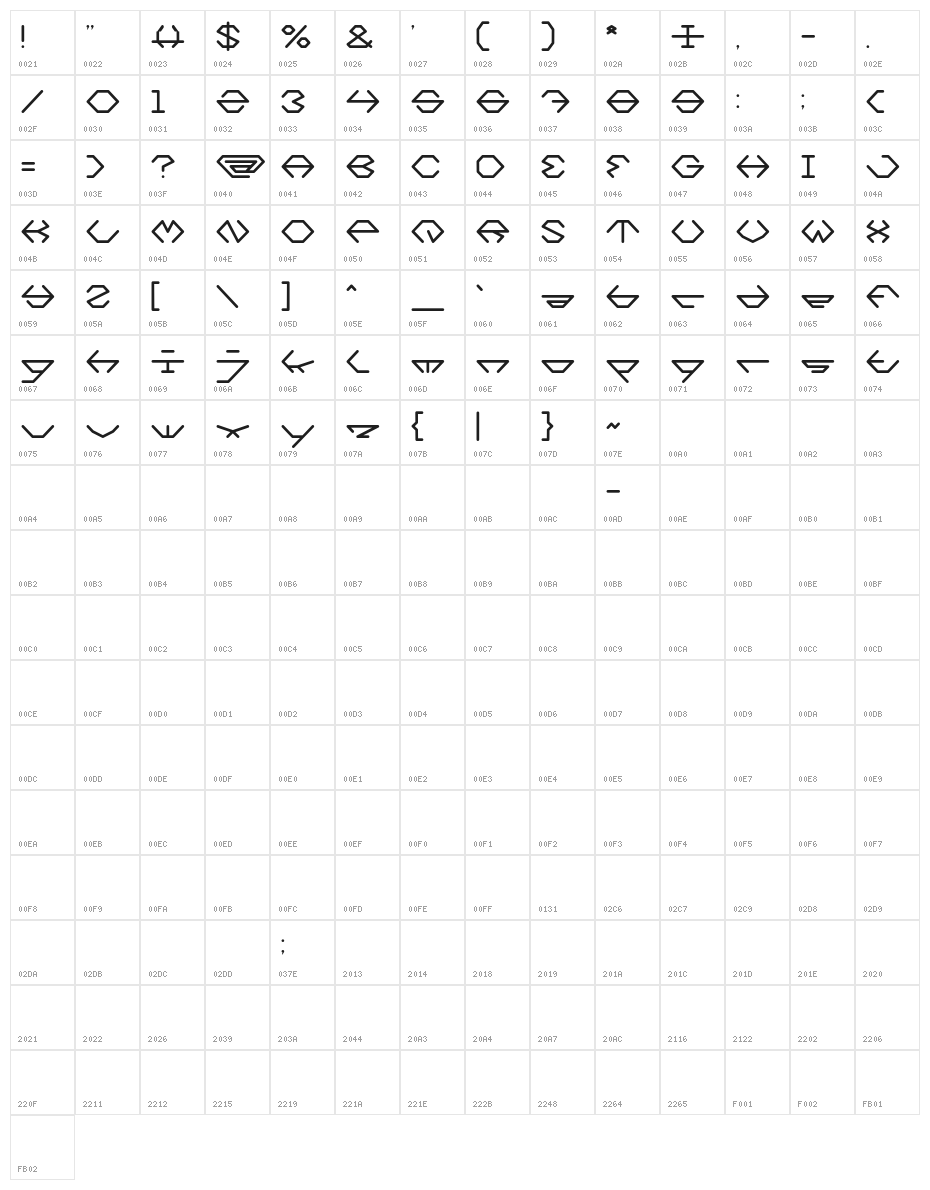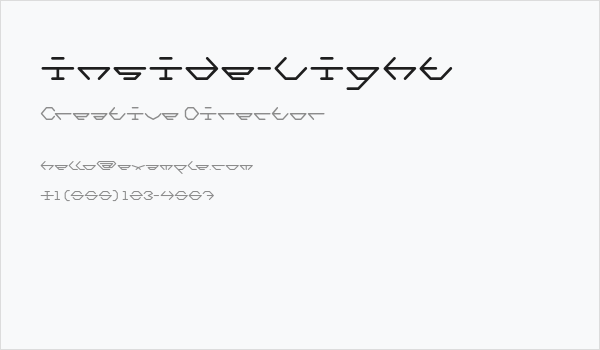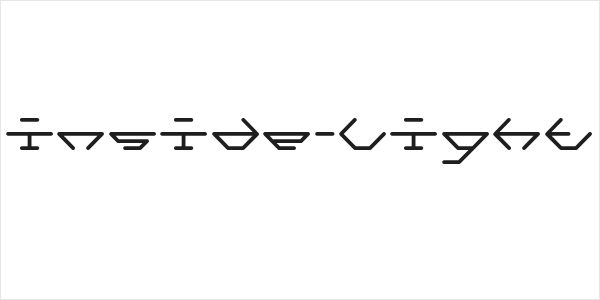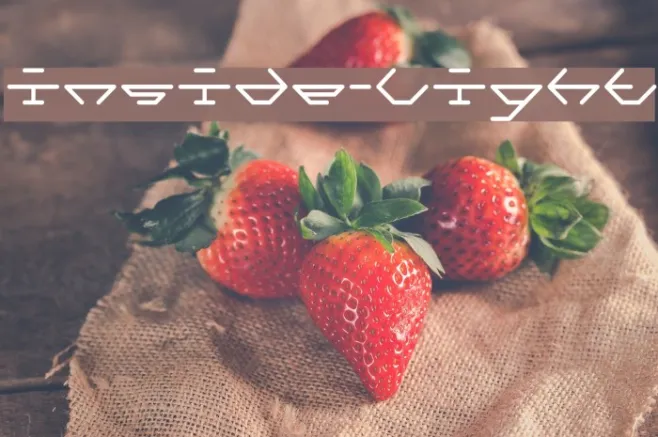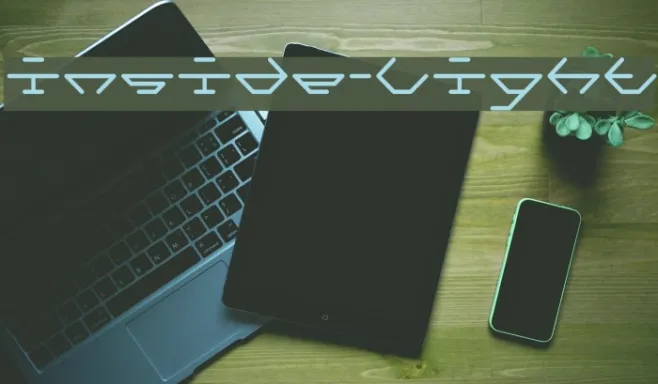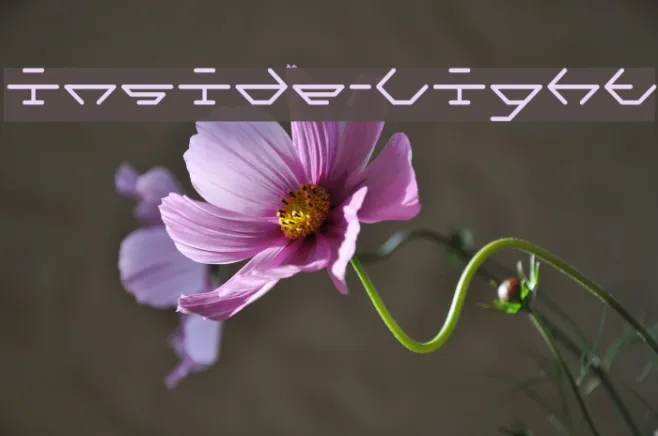
inside-Light Font
inside-Light Description
This font features a futuristic and geometric design, characterized by angular lines and sharp edges. Each character is constructed with a series of straight lines and angles, giving it a distinct, almost digital appearance. The uppercase and lowercase letters maintain a consistent style, with unique variations that make each character easily distinguishable. Numbers and special characters follow the same design principles, ensuring uniformity across the font. The overall look is modern and tech-inspired, suitable for projects that require a cutting-edge aesthetic.
INSIDE-LIGHT UPPERCASE
INSIDE-LIGHT LOWERCASE
INSIDE-LIGHT OTHER CHARS
| Use Case | Logos, Headlines, Display text |
| Proposed Projects | Ideal for technology branding, sci-fi themed designs, video game interfaces, and modern art projects. |